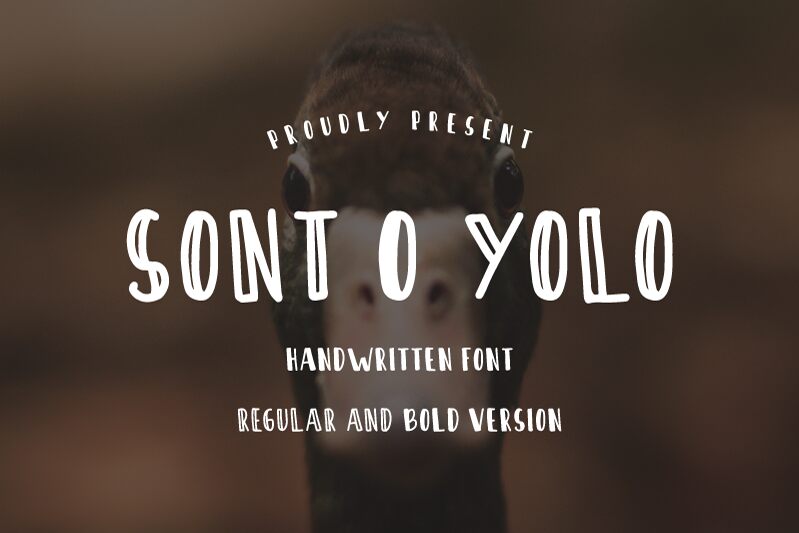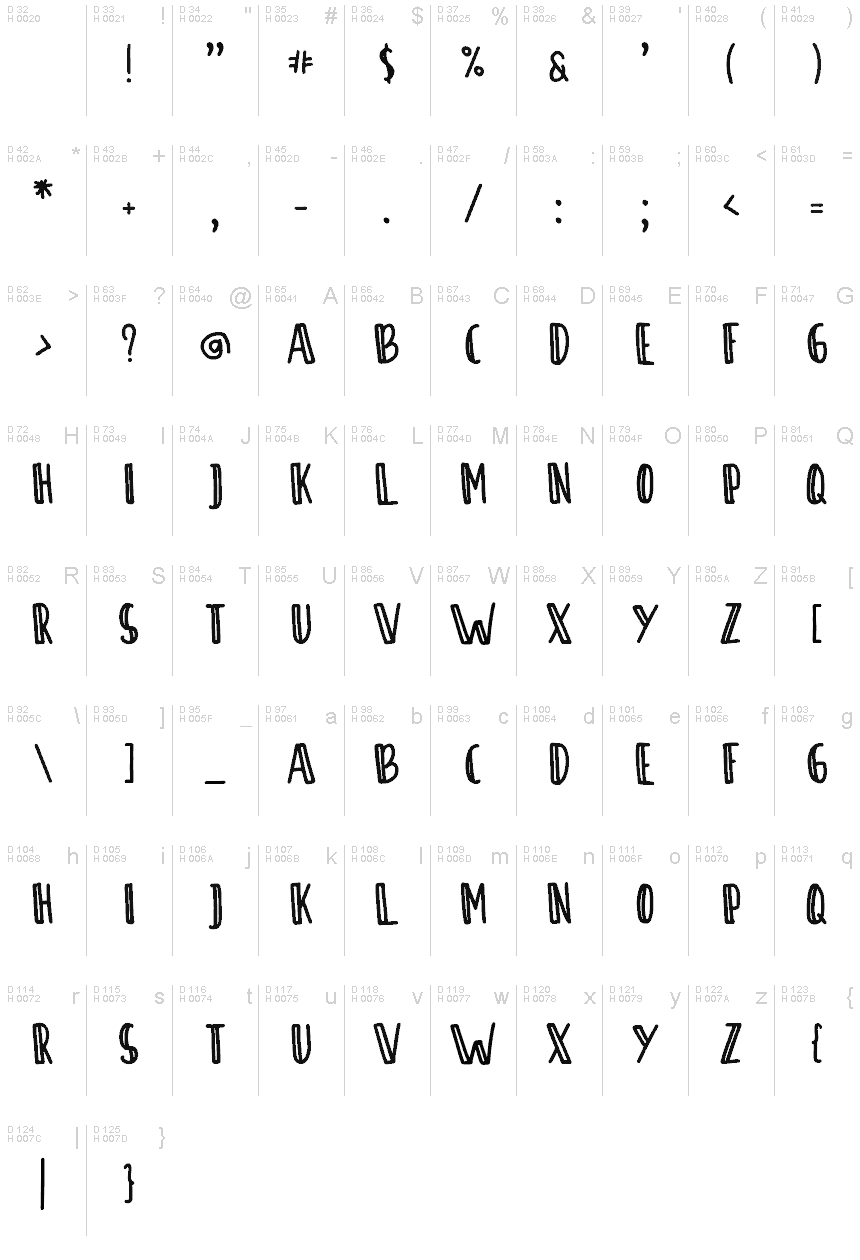
Sont O Yolo, crafted by the imaginative Muhammad Hasan, is a distinctive display font that exudes character and emphasis. With its semi-bold weight, this typography marvel boasts an extra-condensed width, creating a striking visual impact that commands attention. Its tightly packed letterforms lend themselves to powerful headlines and impactful branding, where space is at a premium but expression cannot be compromised.
The aesthetic charm of Sont O Yolo lies in its balance between contemporary flair and functional design. Each character stands out with bold confidence while maintaining readability – a testament to Hasan's design prowess. Perfect for designers looking to inject personality into their work, Sont O Yolo fits seamlessly into an array of creative projects from edgy editorial layouts to innovative advertising campaigns.
Embrace the versatility and stylish allure of Sont O Yolo for your next creative endeavor and let its unique typeface transform your message into an unforgettable visual statement.
Sont O Yolo Font also includes full set of uppercase letters, numerals, punctuation, multilingual. It would be perfect for all types of printing techniques, you can do embroidery, laser cut, gold foil, etc.